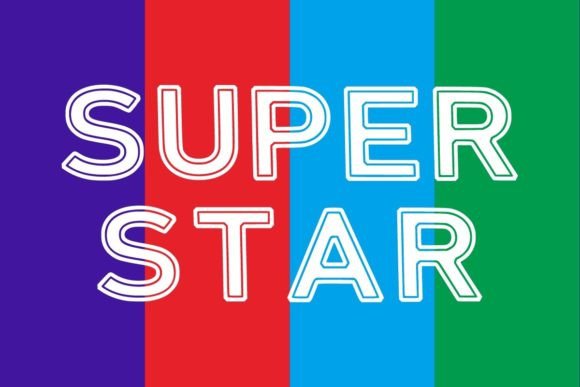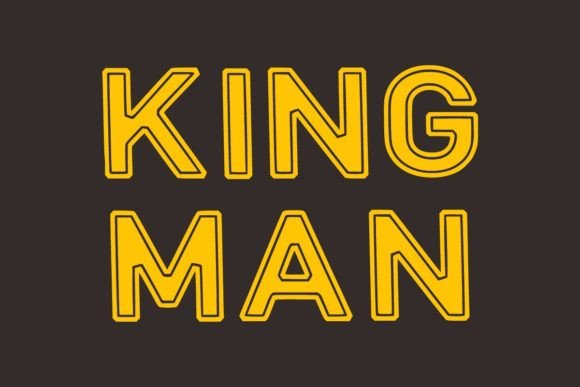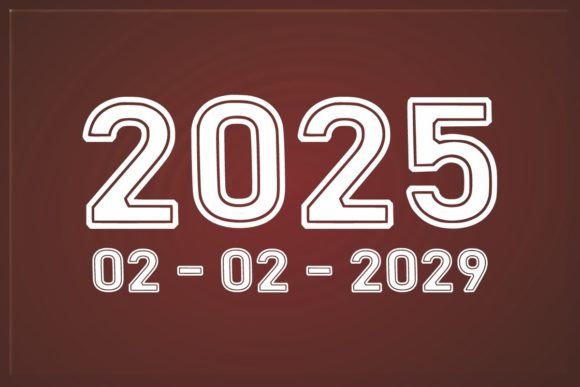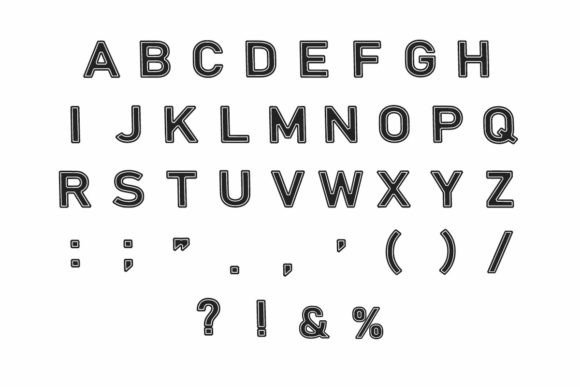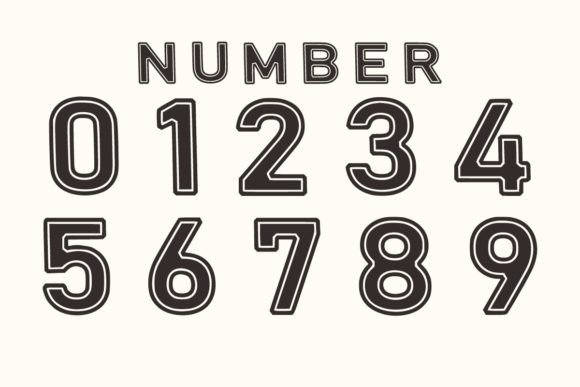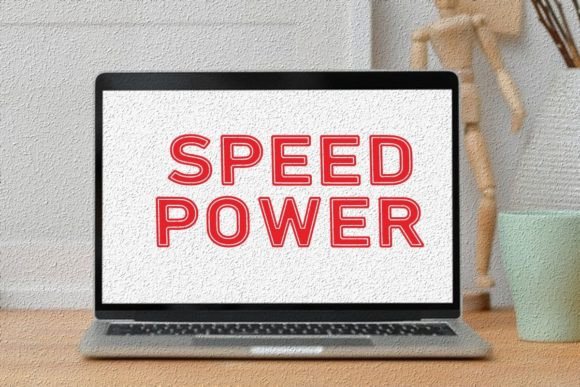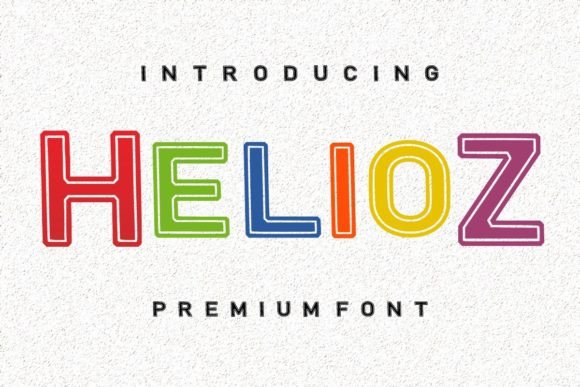
Introducing Helioz Font: The Ultimate Display Font for Friendly Designs
Are you tired of using the same old fonts for your designs, crafts, and digital projects? Look no further! Helioz Font is here to revolutionize the way you create, with its childish, bold, and easy-to-read style that’s perfect for conveying impeccable friendliness. In this article, we’ll dive into the world of Helioz Font, exploring its features, benefits, and uses, and why it’s about to become your new favorite go-to font.
The Helioz Font Advantage
So, what makes Helioz Font so special? For starters, its bold and playful design makes it perfect for grabbing attention and adding a touch of whimsy to your designs. Whether you’re working on a craft project, creating digital art, or designing a presentation, Helioz Font is sure to make your work stand out. Its childish charm also makes it an excellent choice for greeting cards, invitations, and other social materials where you want to convey a sense of warmth and approachability.
Key Features of Helioz Font
- Childish and playful design: Helioz Font has a youthful and energetic vibe that’s perfect for designs that need a touch of fun and personality.
- Bold and easy-to-read: The font’s bold design ensures that your text is always legible, even at small sizes.
- Display font: Helioz Font is specifically designed as a display font, making it perfect for headlines, titles, and other attention-grabbing elements.
- Versatile: Whether you’re working on digital designs, crafts, presentations, or greeting cards, Helioz Font is a versatile choice that adapts to any occasion.
Who Can Benefit from Helioz Font?
Helioz Font is a fantastic addition to any designer’s or crafter’s toolkit. Here are some professionals and hobbyists who can benefit from using Helioz Font:
- Graphic designers: Add a touch of friendliness and approachability to your designs with Helioz Font.
- Crafters: Use Helioz Font to add a personal touch to your craft projects, such as handmade cards, scrapbooking, and DIY decorations.
- Digital artists: Create stunning digital art with Helioz Font, perfect for illustrations, animations, and other visual effects.
- Presenters: Make your presentations more engaging and memorable with Helioz Font.
How to Use Helioz Font in Your Designs
Using Helioz Font in your designs is easy! Here are some tips to get you started:
- Pair with complementary fonts: Combine Helioz Font with other fonts to create a unique and harmonious design.
- Experiment with colors: Try out different colors and color combinations to match your brand or design style.
- Play with textures and patterns: Add an extra layer of depth to your designs with textures and patterns that complement Helioz Font.
In conclusion, Helioz Font is a game-changing display font that’s perfect for designers, crafters, and anyone looking to add a touch of friendliness and approachability to their designs. With its childish, bold, and easy-to-read design, Helioz Font is sure to become your new favorite go-to font. So why wait? Try Helioz Font today and take your designs to the next level!